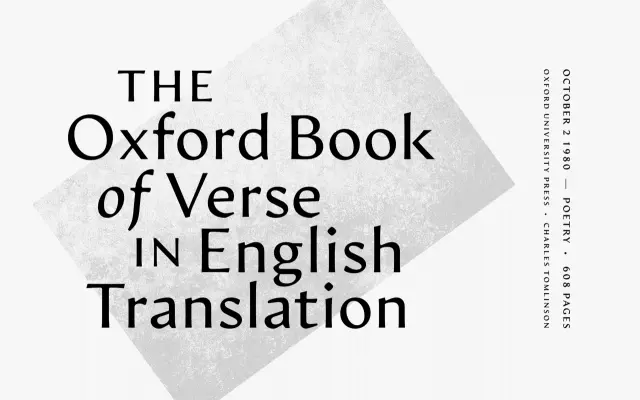
Artifex Hand CF
Connary Fagen · Connary Fagen
A flared sans variant of Artifex CF, trading serifs for calligraphic stroke endings across eight weights with broad Latin, Cyrillic and Greek coverage.
Derived from Connary Fagen's Artifex CF serif, this family replaces conventional serifs with subtle flares that retain a calligraphic warmth without tipping into script territory. Sixteen styles span Extra Light to Heavy with true italics throughout, and the glyph set extends to Vietnamese, Pinyin, IPA and multiple romanisation sets. OpenType features include small capitals, oldstyle figures, tabular figures and discretionary ligatures, making it suited to continuous text as well as display use.
A flared sans derived from its serif sibling Artifex, with calligraphic stroke endings in place of conventional serifs, placing it firmly in the humanist sans tradition with warm, pen-derived detailing.